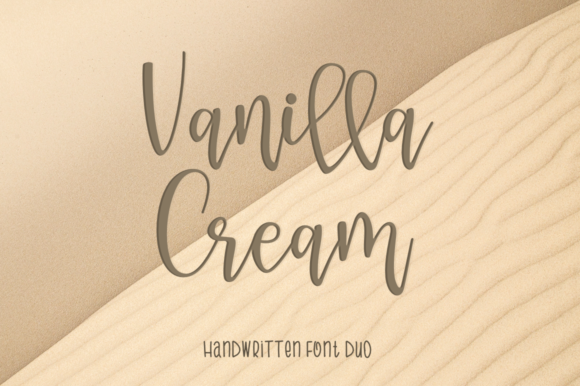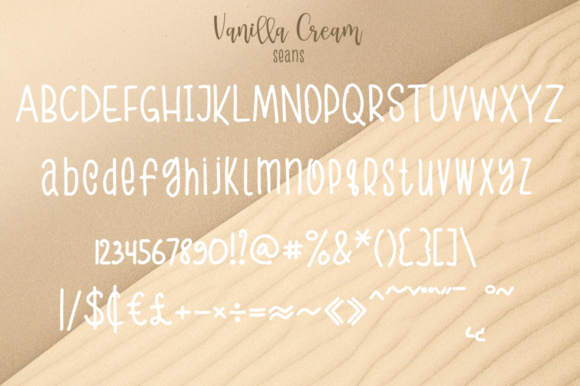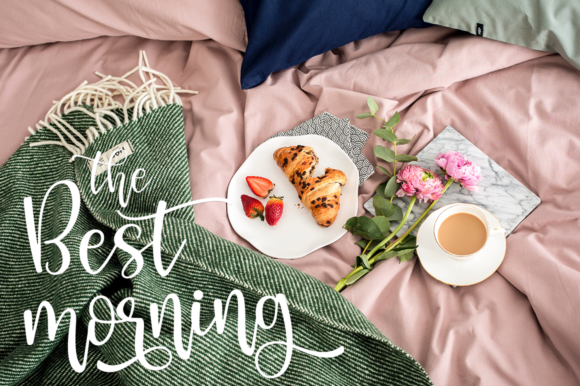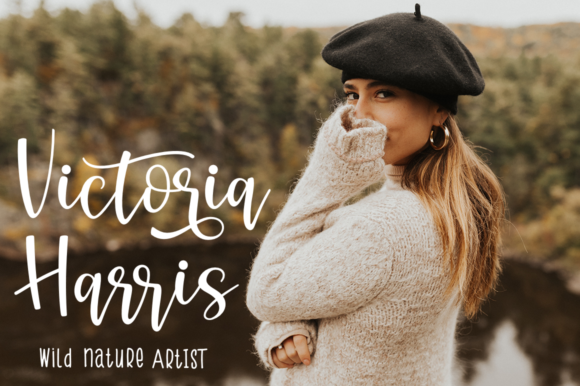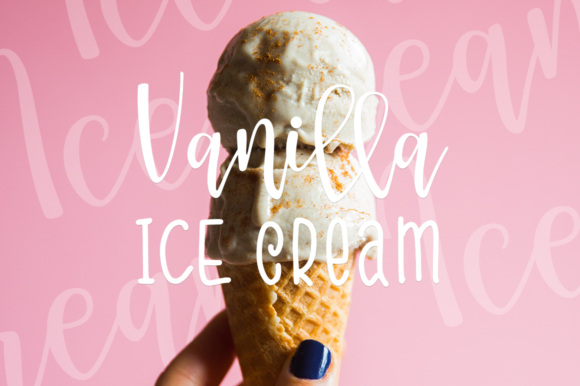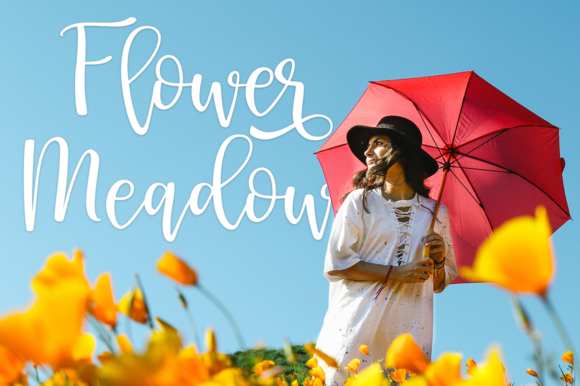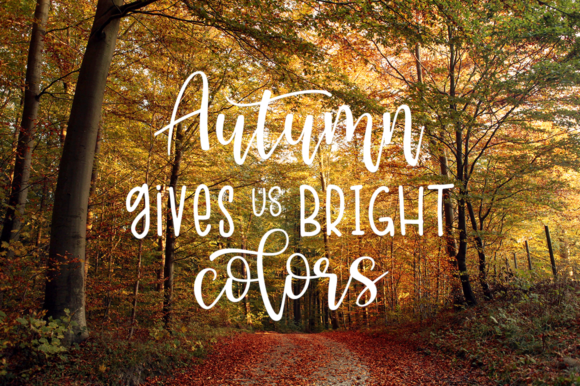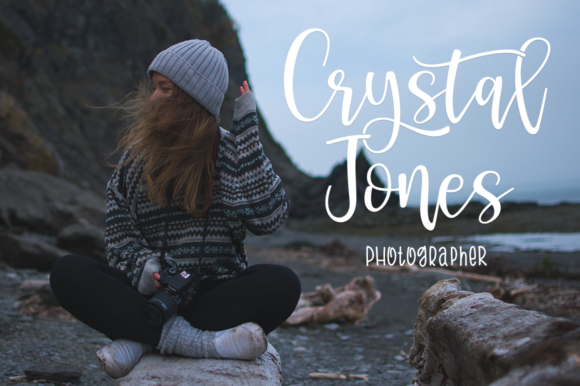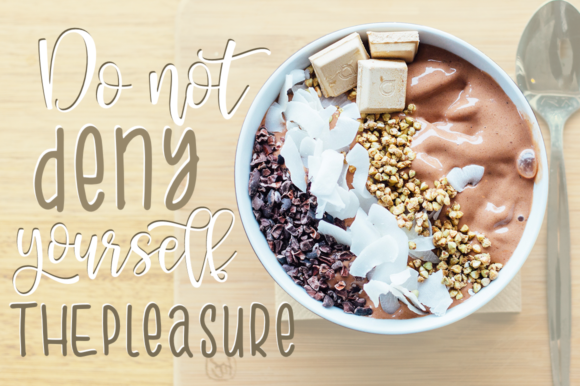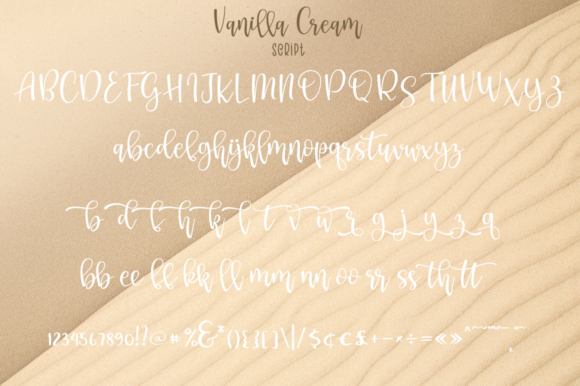
HomeScript FontsVanilla Cream Font Script Fonts Vanilla Cream Font FacebookXPinterestWhatsApp Vanilla Cream Font Poster 2 Vanilla Cream Font Poster 3 Vanilla Cream Font Poster 4 Vanilla Cream Font Poster 5 Vanilla Cream Font Poster 6 Vanilla Cream Font Poster 7 Vanilla Cream Font Poster 8 Vanilla Cream Font Poster 9 Vanilla Cream Font Poster 10 About Vanilla Cream Font The Vanilla Cream is a new modern handmade font. It’s ideal for branding and decorating your projects. DOWNLOAD NOW People also explored Efrina Font Wish List Font Hurtley Font Jelly Drink Font Rostendall Font Daenerys Beautiful Heart Font Rabbity Font Change Font 346 0 TagsVanilla Cream Font Previous articleMaxwell FontNext articleShilfa Script Font LEAVE A REPLY Cancel reply Comment: Please enter your comment! Name:* Please enter your name here Email:* You have entered an incorrect email address! Please enter your email address here Website: Save my name, email, and website in this browser for the next time I comment. Personal Use Free Hello, How Are You? Personal Use Free Read more about this font Haris Wood Personal Use Free Read more about this font Trio Personal Use Free Read more about this font Potato Pancakes Personal Use Free Read more about this font BLOG Best Fonts for YouTube Videos: Make Your Thumbnails Stand Out Best Fonts for YouTube Videos: Make Your Thumbnails Stand Out Choosing the right font can make a massive difference in how your YouTube videos perform.... Top 10 Handwritten Fonts That Elevate Your Designs Where to Buy American Fonts Online in 2024 Free vs Paid Fonts: Why Investing in Premium Fonts Is Worth It